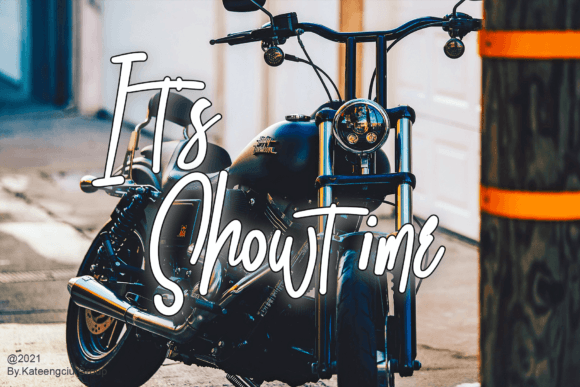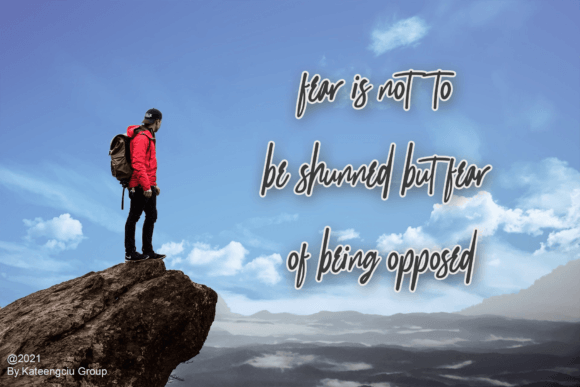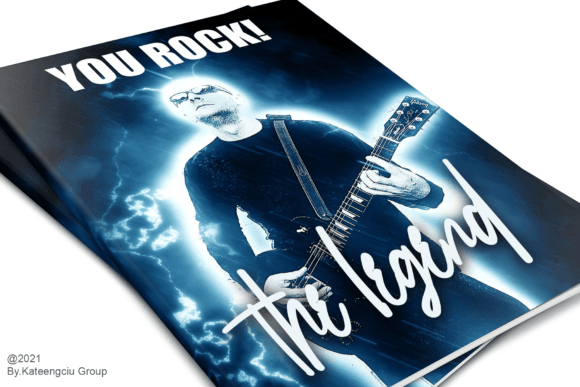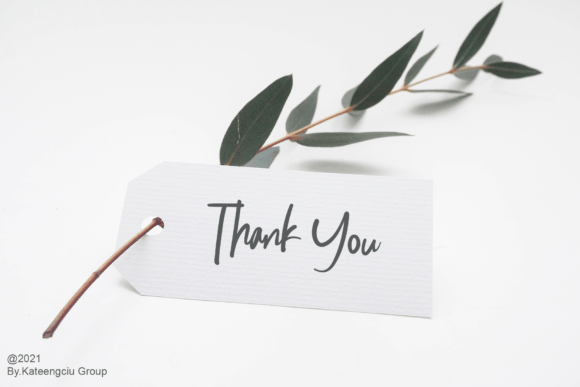
Introducing Buttermillon Font: A Simple yet Elegant Handwritten Font
Are you on the hunt for a font that exudes elegance, modernity, and a touch of quirkiness? Look no further than Buttermillon Font! This beautiful handwritten font is perfect for designers and crafters looking to add a personal touch to their projects. In this article, we’ll dive into the world of Buttermillon Font, exploring its features, uses, and benefits.
A Classy, Elegant, and Modern Look
Buttermillon Font boasts a classy, elegant, and modern look that’s sure to elevate your designs. Its simple yet sophisticated appearance makes it an excellent choice for a wide range of projects, from logos and branding to invitations, stationery, and wedding designs. The font’s clean lines and subtle flair give it a refined feel that’s perfect for creating professional-looking materials.
One of the best things about Buttermillon Font is its versatility. This font can be used for a variety of purposes, including:
- Logos and branding: Create a lasting impression with a custom logo that showcases your brand’s personality.
- Invitations and stationery: Add a touch of elegance to your invitations, greeting cards, and stationery.
- Wedding designs: Make your wedding materials, such as invitations, programs, and place cards, truly special with Buttermillon Font.
- Social media posts: Elevate your social media game with eye-catching graphics and posts that feature Buttermillon Font.
- And much more: From packaging to advertising, the possibilities are endless with Buttermillon Font!
What Makes Buttermillon Font Stand Out?
So, what sets Buttermillon Font apart from other fonts? Here are a few key features that make it a standout:
- Handwritten charm: Buttermillon Font has a warm, handwritten feel that’s perfect for creating personal and engaging designs.
- Quirky yet elegant: The font’s quirky touches add a touch of whimsy to your designs, while its elegant lines keep it refined.
- Modern appeal: Buttermillon Font has a distinctly modern feel that’s sure to appeal to designers and crafters looking for a fresh look.
Tips for Using Buttermillon Font
To get the most out of Buttermillon Font, here are a few tips to keep in mind:
- Pair it with other fonts: Experiment with pairing Buttermillon Font with other fonts to create a unique and eye-catching look.
- Use it for headlines and titles: Buttermillon Font is perfect for headlines and titles, where its elegant lines and quirky touches can really shine.
- Don’t be afraid to experiment: With its versatility and charm, Buttermillon Font is a great font to experiment with – don’t be afraid to try new things!
In conclusion, Buttermillon Font is a simple yet elegant handwritten font that’s perfect for designers and crafters looking to add a personal touch to their projects. With its classy, modern look and versatile uses, it’s an excellent choice for a wide range of applications. Whether you’re creating logos, invitations, or social media posts, Buttermillon Font is sure to elevate your designs and help you stand out from the crowd.